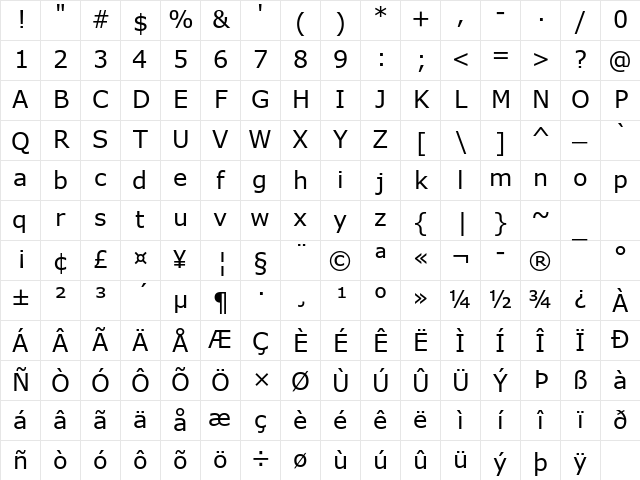
Verdana Pro Regular
Foundry: Monotype Imaging Inc.
Designer: Matthew Carter, Monotype Imaging, The Font Bureau
Design Context for Verdana Pro
Verdana Pro is a composed and adaptable typeface that performs quietly and consistently across a wide range of design contexts.